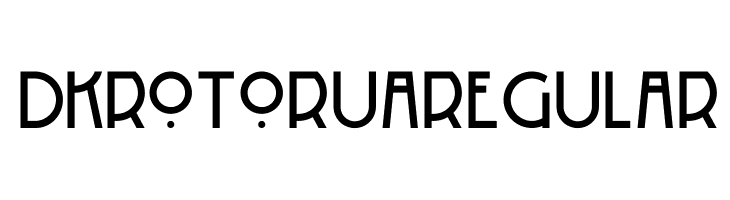
A bold, hand-drawn font with a playful and artistic style.
A playful, handwritten font with tall, narrow letters and a lively, informal style.
( Fonts by a Andrew Hart Dirt2.com - SickCapital. Personal-use only. For commercial use please contact owner. )
A tall, slim font with elongated vertical strokes and narrow letterforms.
( Fonts by Dirt2.com - SickCapital - Andrew Hart - Personal-use only. For commercial use please contact owner. )
A tall, slim, and modern font with consistent thin strokes.
( Fonts by Village Type and Design LLC & Cristiano Sobral - Personal-use only. For commercial use please contact owner. )
A clean, modern sans-serif font with uniform stroke width and rounded edges.
( Fonts by Cooper Hewitt Smithsonian Design Museum )
A clean, modern sans-serif font with consistent stroke width and excellent readability.
( Fonts by Cooper Hewitt Smithsonian Design Museum )
A bold, modern sans-serif font with strong, uniform strokes.